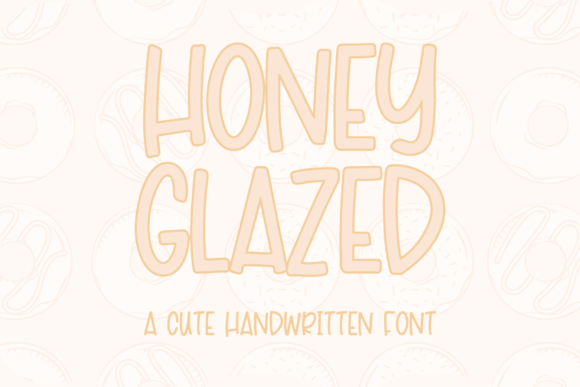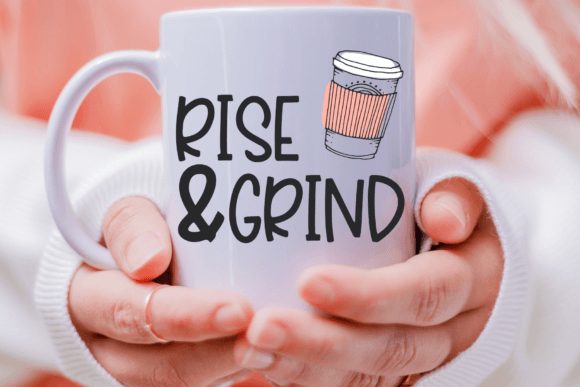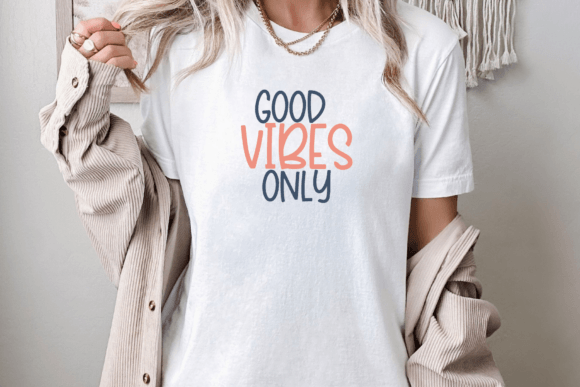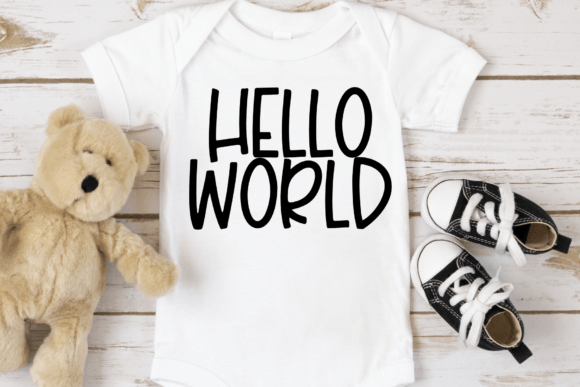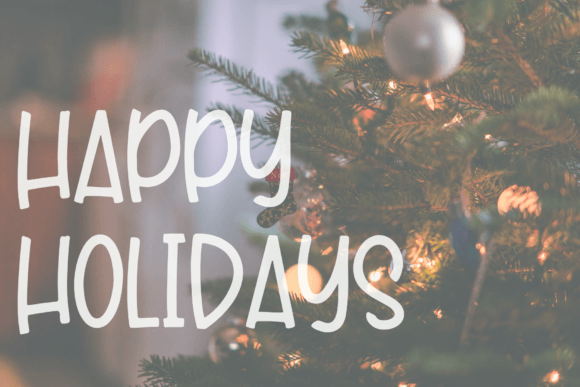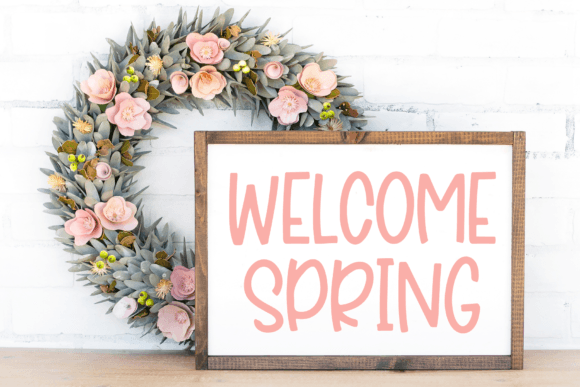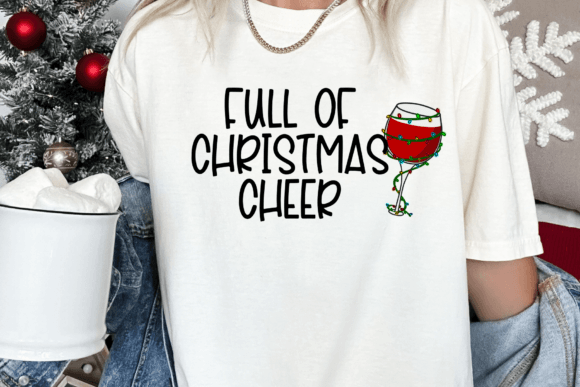
Honey Glazed Font
Honey Glazed is an all-caps, quirky handwritten font. This cute font is perfect for fun logos, greeting cards, t-shirt designs, stickers, social media, and any craft or project for that hand-made look.